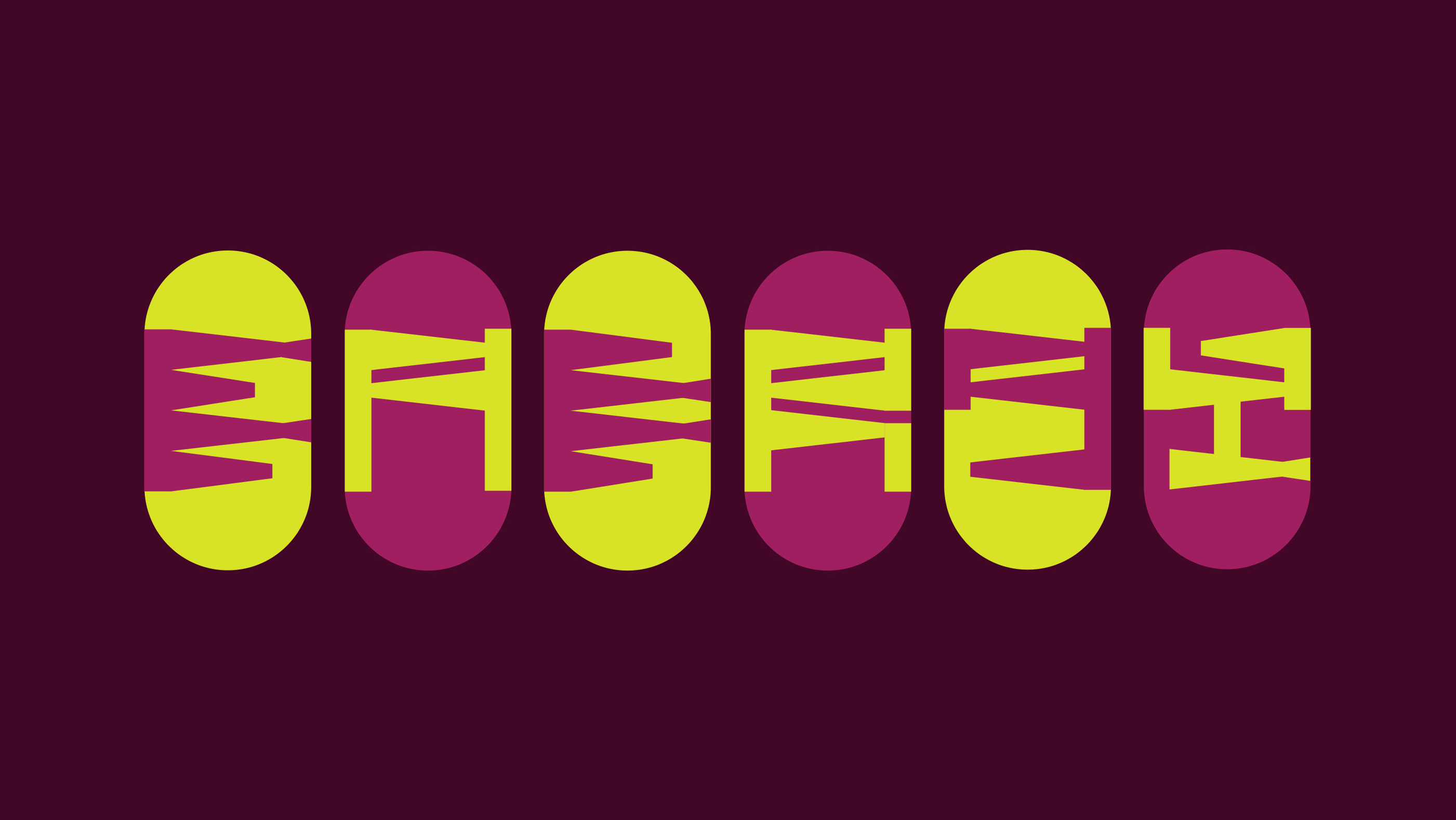
Energy
I wanted to create lettering enclosed within a capsule, symbolizing energy conservation. The letterforms are inspired by the architecture of a building in the French Pyrenees.